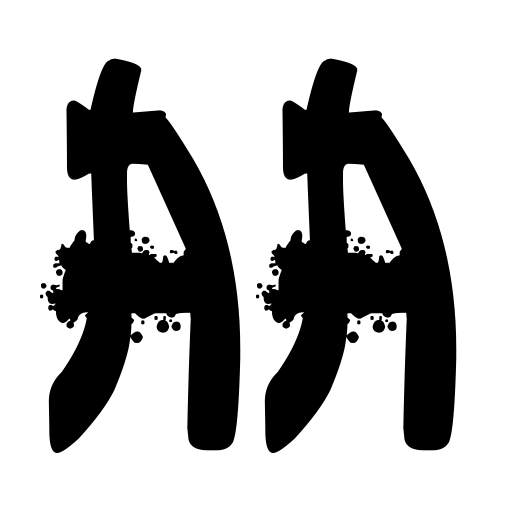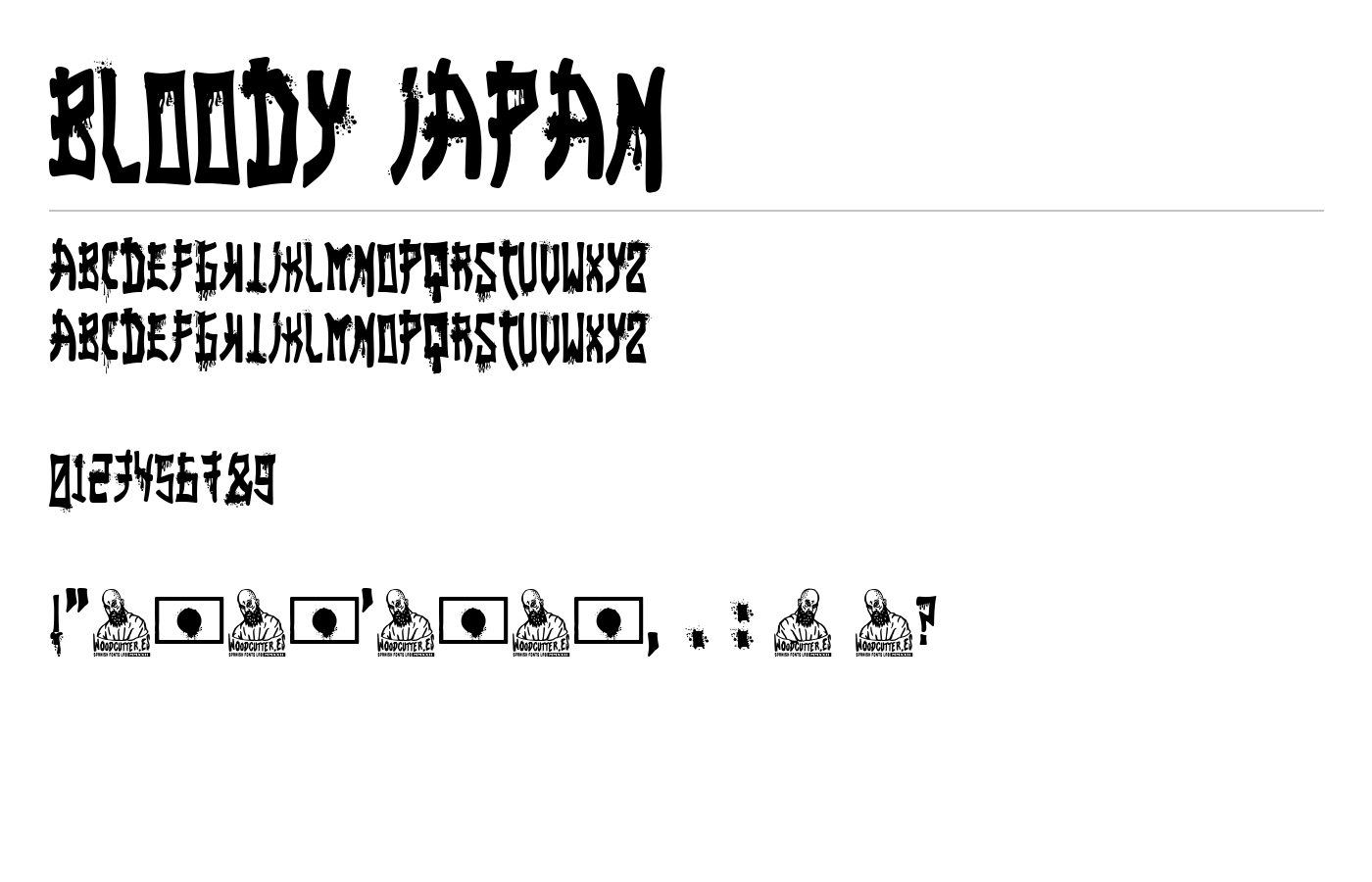
Bloody Japan is a bold, decorative sans serif font featuring a rough, distressed texture that gives it a gritty, edgy feel. Its tall narrow letterforms with sharp, irregular strokes and splattered accents evoke a rebellious, urban vibe perfect for striking headlines, posters, or designs seeking a raw and intense aesthetic. This font works best for creative projects needing a strong, dramatic impact rather than body text.
Bloody Japan Font
About Bloody Japan Font